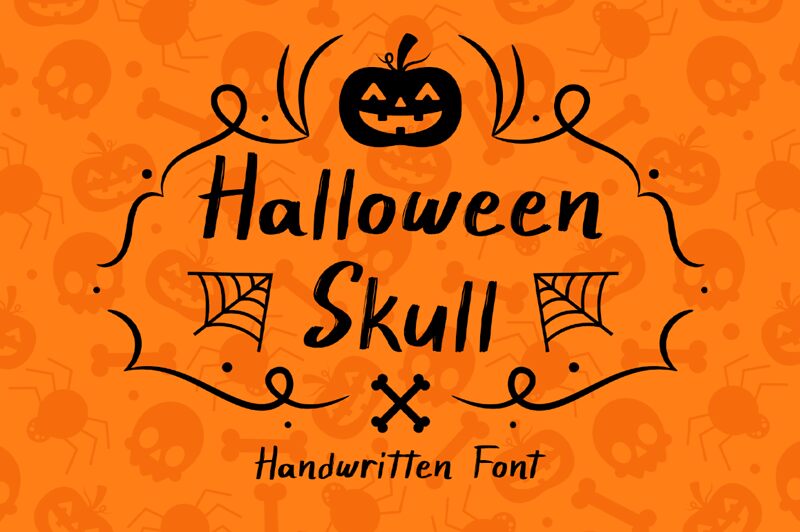
Halloween Skull
Halloween Skull font is a handwritten brush font designed by Phantom Creative Studio.
This font was created By Phantom Creative Studio (Hisyam) From Bandung - Indonesia .